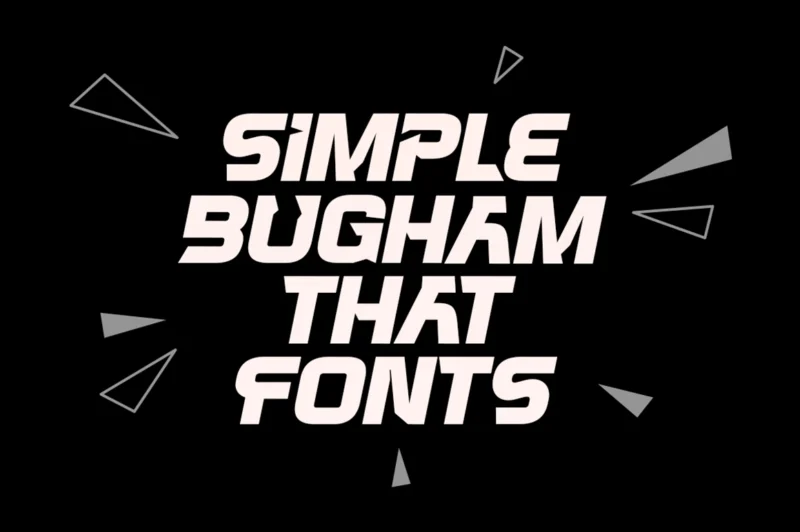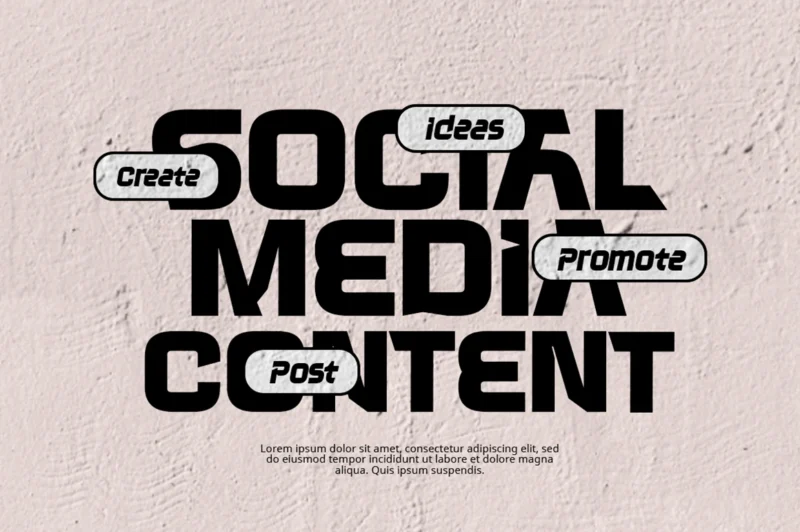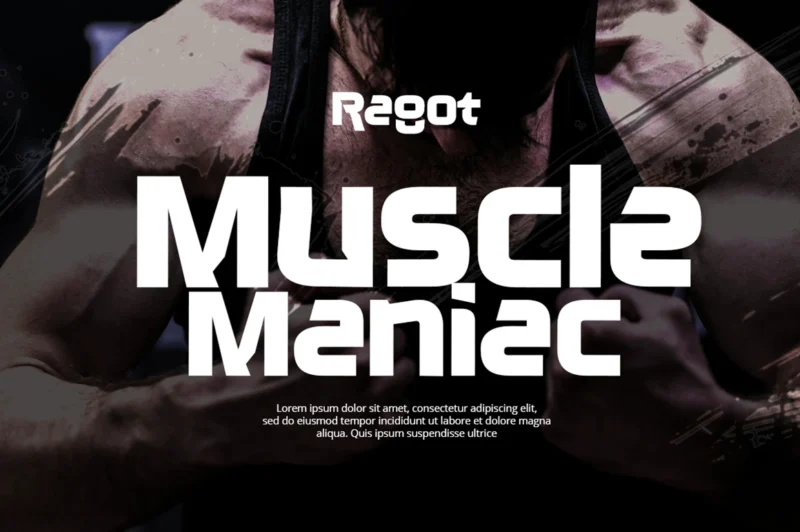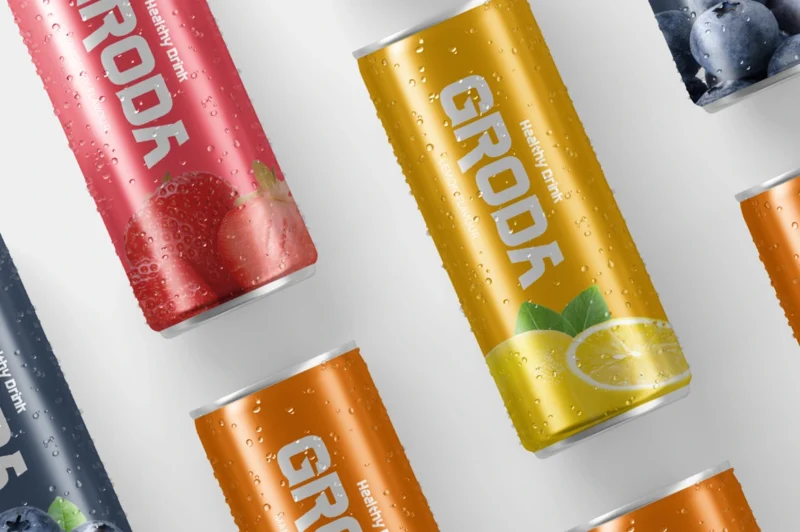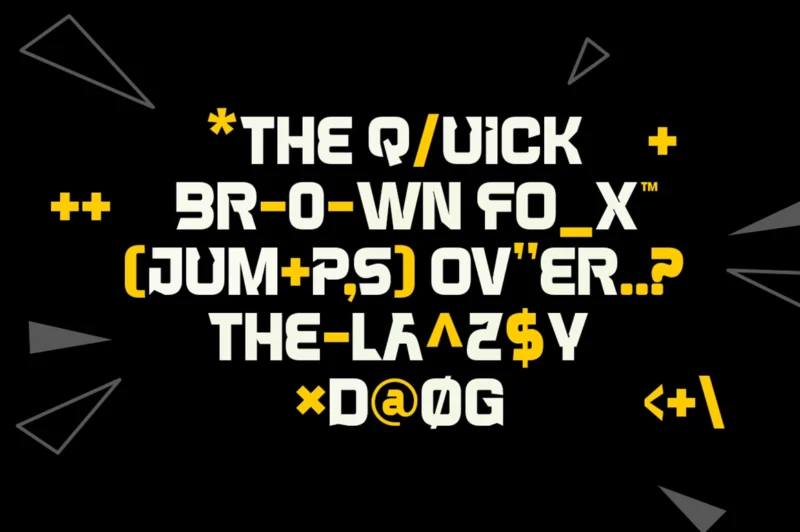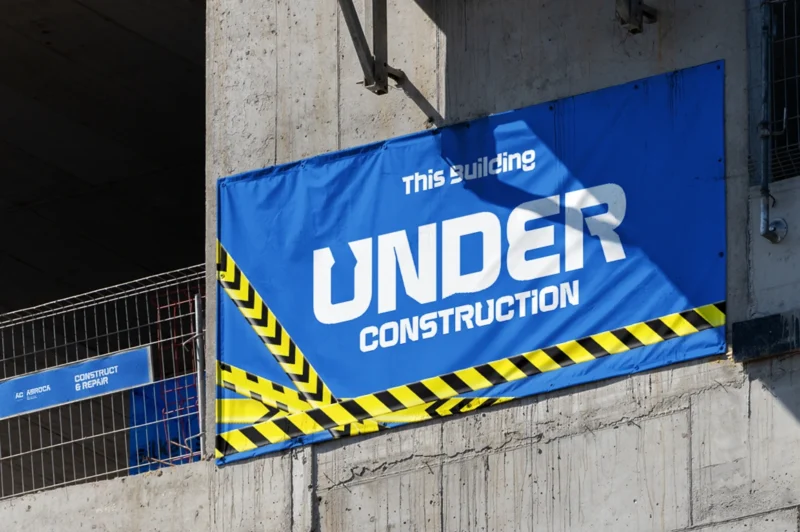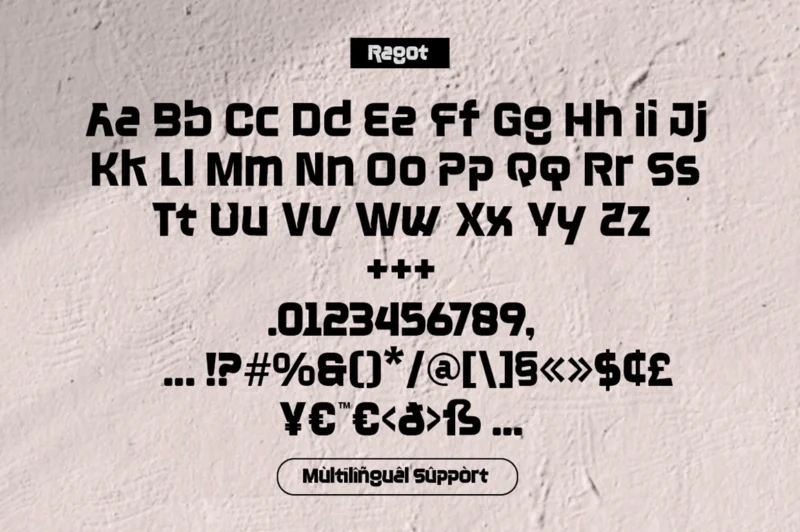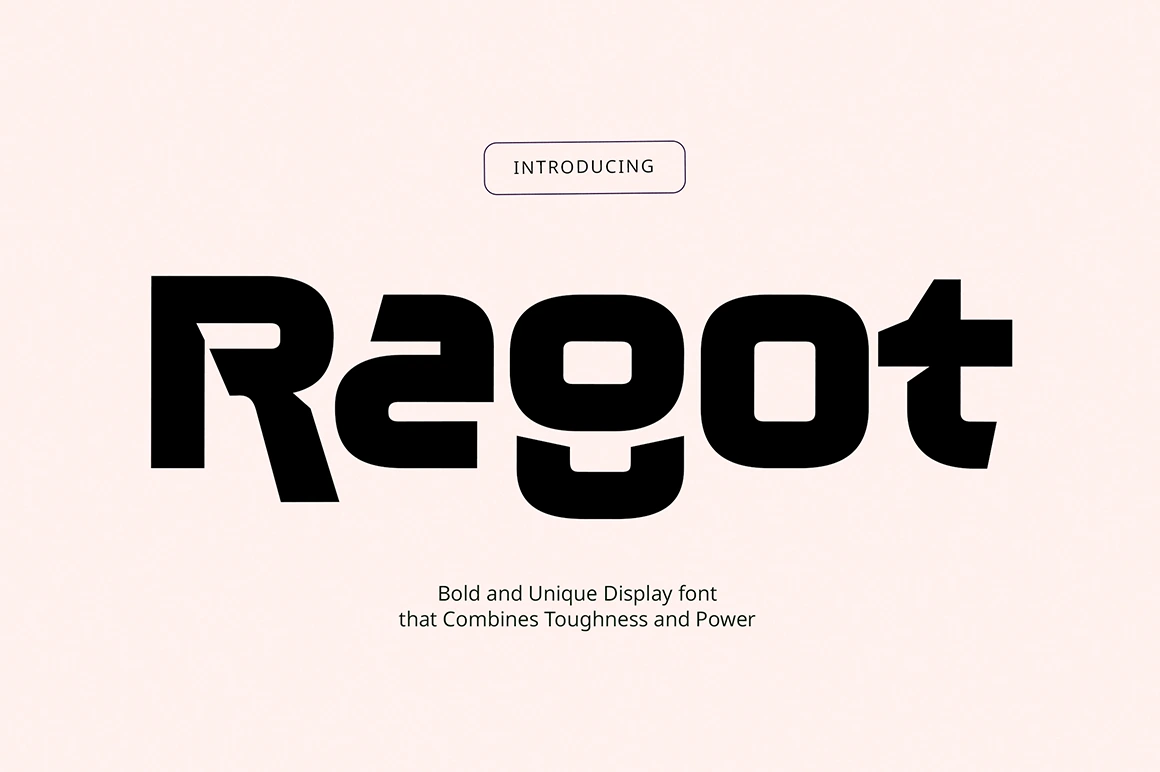
Ragot is a bold and unique display font with a strong, tough, and masculine character. Designed to make a powerful visual statement, Ragot features both uppercase and lowercase glyphs that enhance its versatility while maintaining a solid presence. This font is perfect for headers, logotypes, and any design that needs an impactful and confident look.
Features:
- Basic Latin Glyphs
- Uppercase & Lowercase
- Unique bold Style
- Numeral and Punctuation
- Currencies
- Multilingual Support